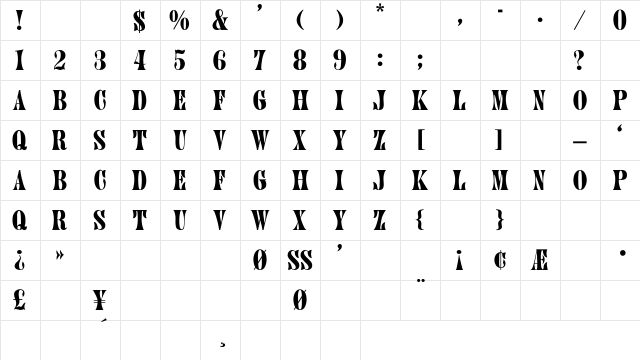
Juniper-Thin Regular Free Font
Juniper-Thin Regular
Design Context for Juniper-Thin
Juniper-Thin is a composed and adaptable typeface that performs quietly and consistently across a wide range of design contexts. Its slender proportions lend an understated elegance to any composition.
Pro Tip: Use Juniper-Thin in both headline and body roles to test its range before committing to a single application.